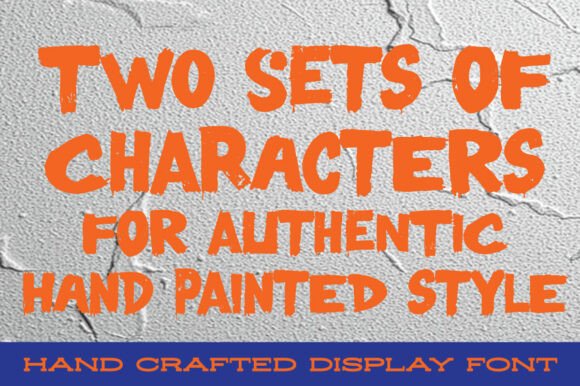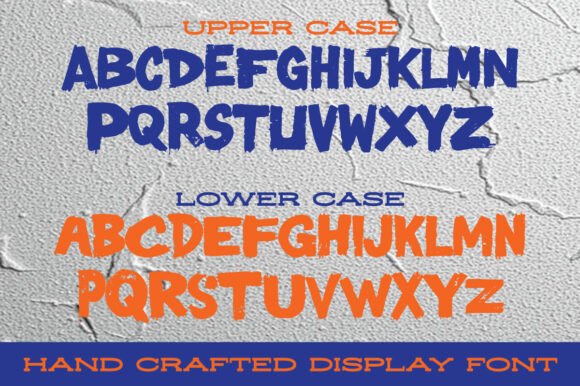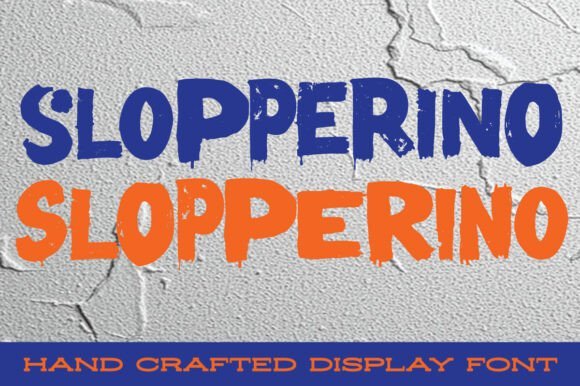
Introduction to Slopperino Font
Slopperino is a bold, hand-painted font with a secret twist: its lowercase characters are entirely different designs, offering a second layer of creative expression.
Perfect for projects that demand personality, Slopperino adds a dynamic and playful edge to headlines, logos, and eye-catching designs .
Key Features of Slopperino Font